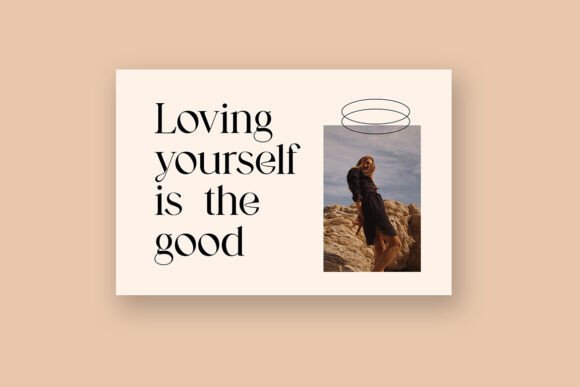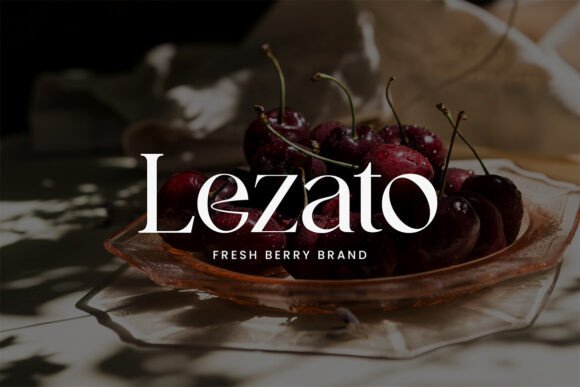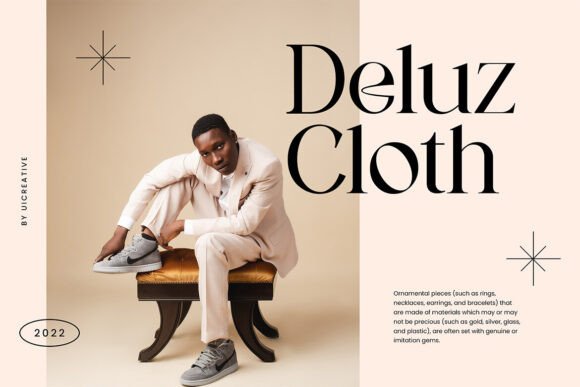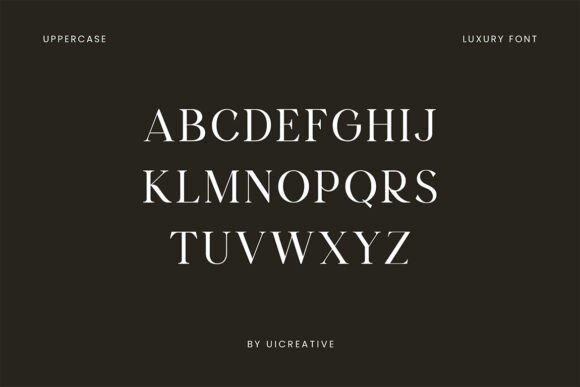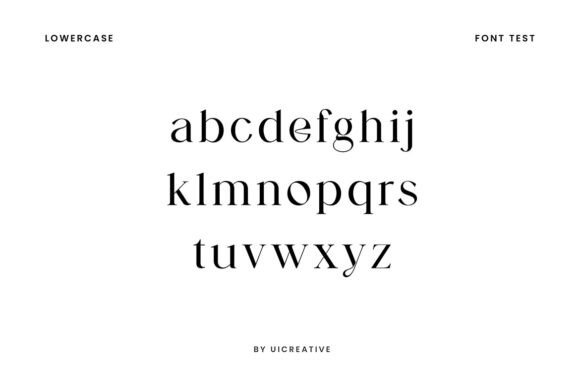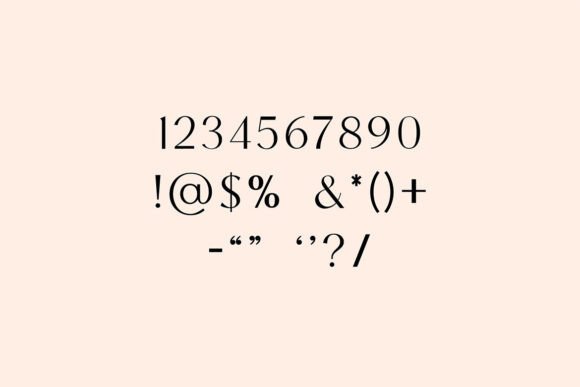
The Dermagent Font: Elevating Your Designs with Luxury and Elegance
Have you ever been in the middle of a design project, and suddenly, you’re struck by a creative roadblock? You’re not alone! I recall a particularly frustrating experience while working on a wedding invitation design. My client wanted a font that exuded luxury, sophistication, and romance. After hours of searching, I stumbled upon the Dermagent Luxury Serif Font. It was love at first sight! ✨
As a designer, I’m always on the lookout for fonts that can elevate my projects. Here’s what I love about Dermagent:
- ✨ Elegant and classy feel: Dermagent has a timeless quality that makes it perfect for high-end branding, wedding designs, and luxury editorials.
- ✅ Versatility: This font is incredibly versatile and can be used for a wide range of projects, from signature and stationery to website headers and book covers.
- 💃 Masculine and feminine qualities: Dermagent strikes a perfect balance between masculine and feminine qualities, making it ideal for fashion-related branding and editorial design.
While Dermagent is an exceptional font, it’s not without its quirks:
- 🤔 Limited availability of certain glyphs: Some users have reported that certain glyphs, such as the euro symbol, are not readily available. However, this can be easily resolved by using the font’s OpenType features.
- ⚠️ Requires careful kerning: As with any serif font, Dermagent requires careful attention to kerning to ensure optimal readability.
The Story Behind Dermagent: Designer Inspiration
The Dermagent font was designed with the intention of creating a luxurious, elegant typeface that would evoke feelings of sophistication and refinement. The designer’s inspiration came from classic serif fonts, with a modern twist to make it more versatile and user-friendly. The result is a font that exudes luxury, elegance, and style, making it perfect for high-end branding, editorial design, and creative projects.
| What type of projects is Dermagent best suited for? | Dermagent is ideal for a wide range of projects, including signature and stationery, logo design, wedding designs, typography quotes, magazine or book covers, website headers, branding, and more. |
| Is Dermagent a versatile font? | Yes, Dermagent is incredibly versatile and can be used for both masculine and feminine designs, making it perfect for fashion-related branding and editorial design. |
| Does Dermagent support OpenType features? | Yes, Dermagent supports OpenType features, including stylistic alternates and glyphs, which can be accessed through the font’s OpenType tab in compatible design software. |